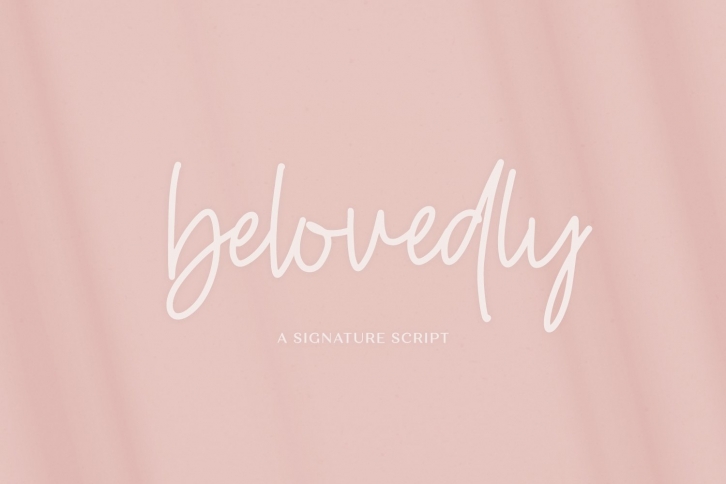
Belovedly Signature Script Font Download
Belovedly Signature Script is a beautiful font that was designed by BeckMcCormick. It's a great choice for designers and creatives who need such a font. It was released on May 11, 2020 and the file size is 8.97 MB. Belovedly Signature Script may give a more youthful, expressive and casual look to your project. It is a very beautiful, refined, elegant, and high-quality font.